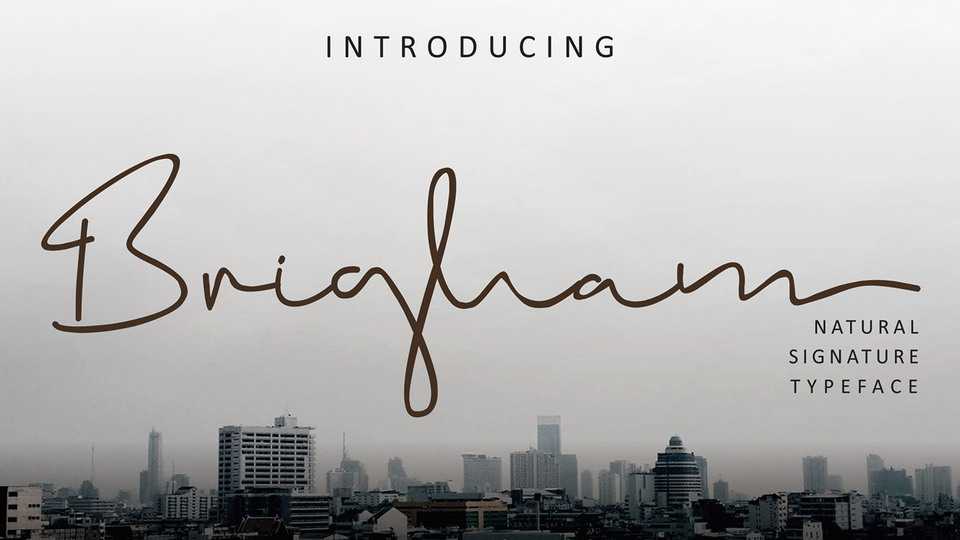
Download Brigham Script is a beautiful signature font with natural flow. Brigham Signature Script is perfect for branding projects, logos, wedding designs, social media posts, advertisements, labels, photography watermarks, invitations, stationery and any project that requires a handwritten signature taste.